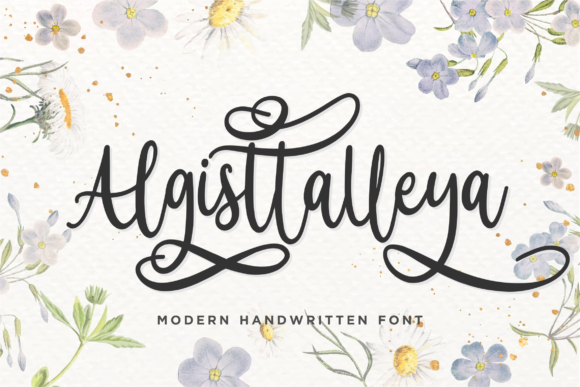
Unlock the Magic of Luxury Design with Algisttalleya Font
Have you ever been working on a design project and suddenly felt a spark of inspiration? Maybe it was a late-night brainstorming session, or a conversation with a fellow creative. Whatever the moment, you know that feeling of excitement and possibility when a new idea takes shape. And now, with the introduction of the stunning Algisttalleya Font, you’ll be able to capture that luxury feel and bring it to life in your designs.
This beautiful handwritten font is more than just a pretty face – it’s a game-changer for designers looking to add a touch of sophistication and elegance to their work. With its unique feel and stunning impact, the Algisttalleya Font is the perfect addition to any design project, from high-end branding to bespoke invitations.
Algisttalleya Font Key Features
- Font Family: Algisttalleya is a unique, custom font family.
- Unique Characteristics: Features a distinctive, hand-drawn aesthetic with organic flourishes.
Designer Review: Algisttalleya Font
I recently had the chance to dive into the Algisttalleya font, and I have mixed feelings about it. ✨ On the plus side, the font’s unique blend of modern and vintage elements makes it a great choice for projects that need a touch of elegance and sophistication. The letterforms are well-crafted, with smooth connections and a consistent feel throughout. The font also comes in a range of weights, from light to bold, making it easy to adapt to different design contexts.
The font’s versatility is another major advantage. ✨ It works well for both digital and print applications, and its adaptability makes it a great choice for a wide range of projects, from branding and marketing materials to editorial and publishing content.
- ⚠️ The font’s readability can be an issue in smaller sizes, particularly in digital applications where text is often viewed on smaller screens.
- ⚠️ The font’s unique character set can make it difficult to use in certain languages or cultural contexts where specific characters or symbols are not supported.
Overall, I think the Algisttalleya font is a solid choice for designers who need a high-quality, versatile font for their projects. However, it’s essential to be aware of its limitations and use it judiciously to ensure the best results.
Tips for Getting the Most Out of Algisttalleya Font
To get the most out of Algisttalleya Font, use it in conjunction with other creative elements, such as bold colors and textures. Experiment with different font sizes and styles to create visual interest.
Algisttalleya Font is perfect for creating eye-catching titles, headings, and graphics for:
What is the recommended font size for Algisttalleya Font?
The recommended font size for Algisttalleya Font depends on the application and the desired visual impact. As a general guideline, use font sizes between 12pt and 24pt for body text, and 36pt and 48pt for headings. This will ensure optimal readability and legibility, while also maintaining the font’s modern and sleek aesthetic.